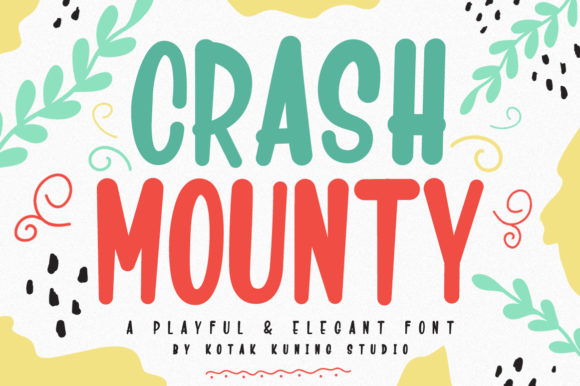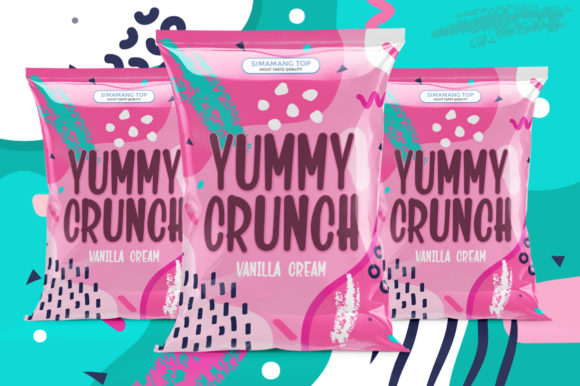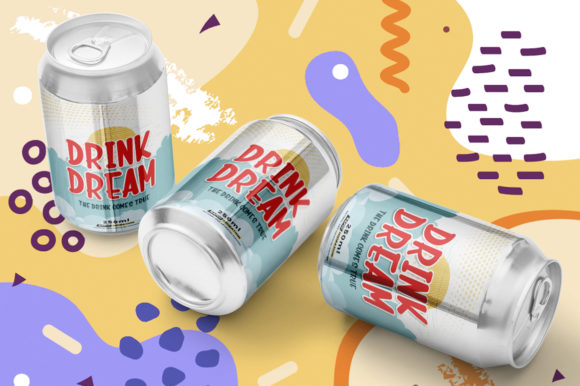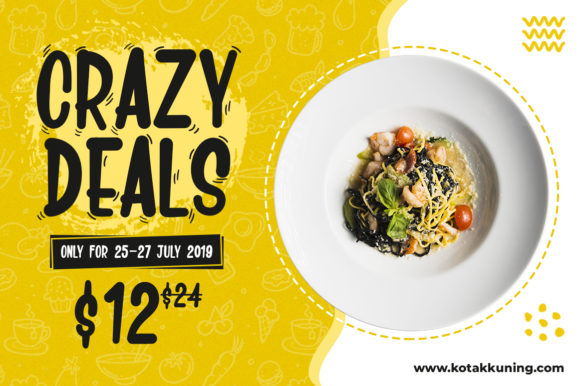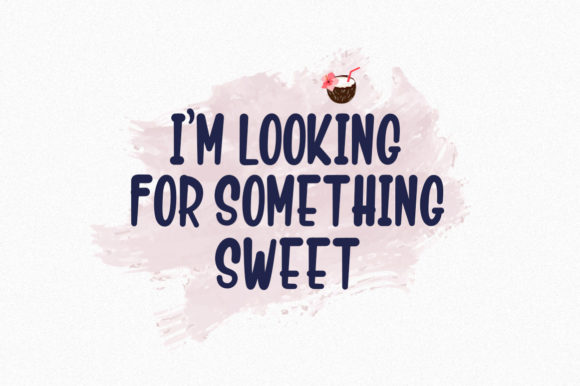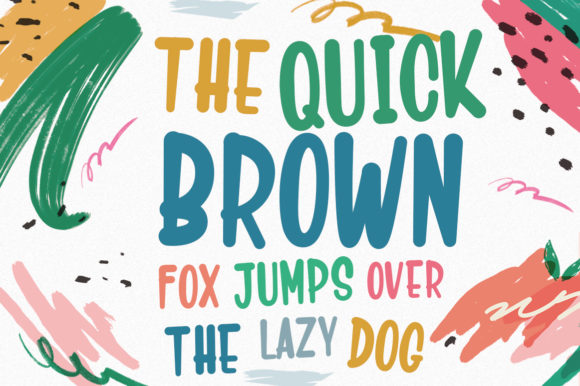
HomeScript FontsCrash Mounty Font Script Fonts Crash Mounty Font FacebookXPinterestWhatsApp Crash Mounty Font Poster 2 Crash Mounty Font Poster 3 Crash Mounty Font Poster 4 Crash Mounty Font Poster 5 Crash Mounty Font Poster 6 About Crash Mounty Font Crash Mounty is a playful and unique font that will easily add a fun touch to any craft! DOWNLOAD NOW People also explored Padi Font Vorg Font Zealand Hello Sunday Font Cuit Font Nother Sans Font Davetica Font Devany Font Simona 341 0 TagsCrash Mounty Font Previous articleMerylia FontNext articleMy Diary Font LEAVE A REPLY Cancel reply Comment: Please enter your comment! Name:* Please enter your name here Email:* You have entered an incorrect email address! Please enter your email address here Website: Save my name, email, and website in this browser for the next time I comment. Personal Use Free Gonestones Personal Use Free Read more about this font Little Things Duo Personal Use Free Read more about this font Crack Man Personal Use Free Read more about this font Gila Personal Use Free Read more about this font BLOG To increase your work productivity, choose the most readable fonts. In today's fast-paced work environment, where digital communication and information consumption are integral to our daily routines, the choice of fonts can significantly impact... Free Fonts Risk: Why Free Fonts Can Be Dangerous for Designers Transform Your Website: Elevate Your Typography with 7 Best Web Font Generators Using Fonts in Digital Marketing: Tips to Strengthen Your Brand Identity